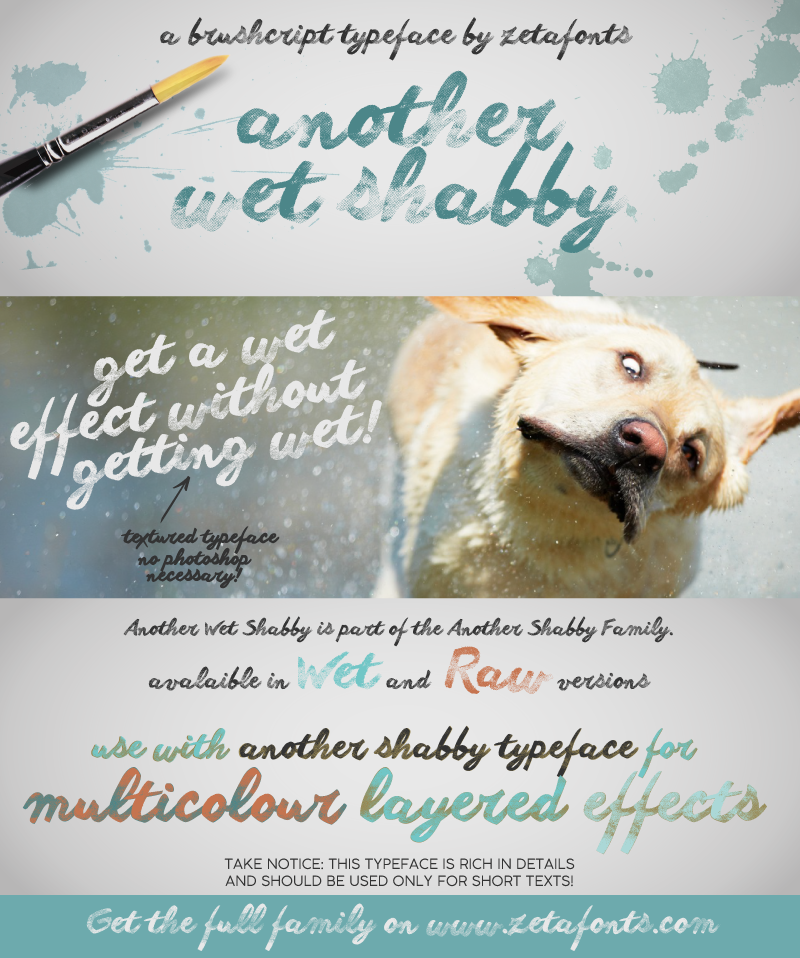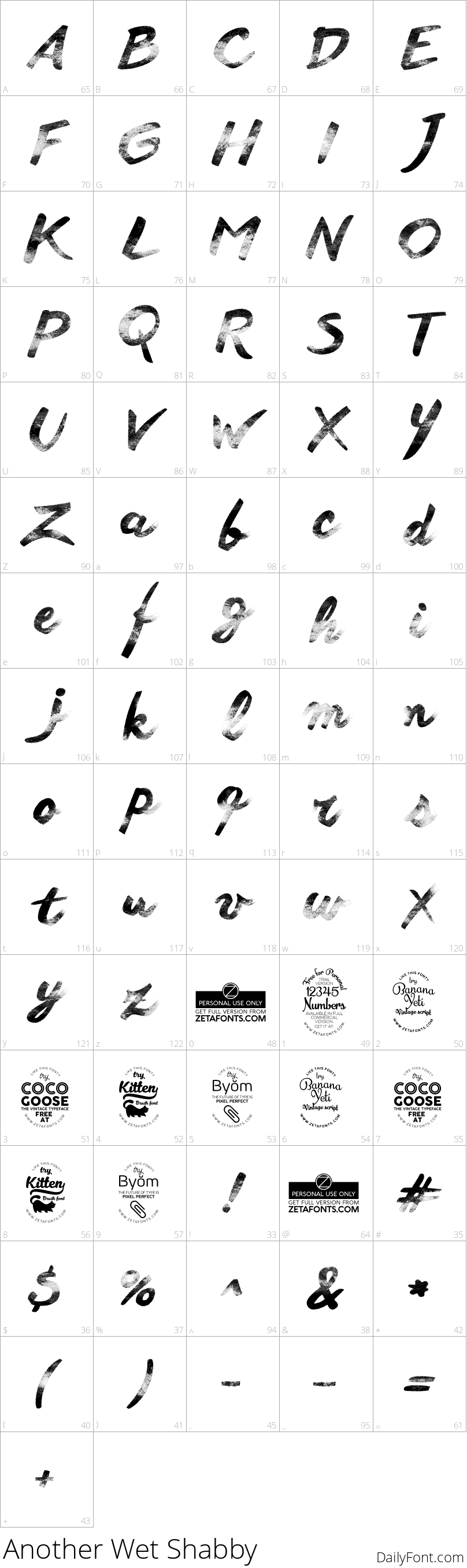
Another Wet Shabby
Discover Another Shabby, a charming script font that captures the essence of handwritten cursive. This stylish typeface is characterized by its rough, brushstroke-inspired strokes, subtly rounded at the edges for a natural, casual feel. Ideal for creating warm and inviting designs, Another Shabby is perfect for use in a variety of applications, including logos, invitations, and body text.
What sets this font apart is its versatility: it covers over 40 languages that use the Latin, Greek, and Cyrillic alphabets, with comprehensive support for accents and diacritics. The full family includes four weights, providing ample options for achieving the desired level of sophistication or playfulness in your design.
But that's not all - Another Shabby also features a unique "Wet" version, exclusive to the Latin alphabet. This innovative feature allows you to create stunning watercolor-textured designs without requiring photo-retouch software. Simply use this font to add a touch of artistic flair to your text-based creations, such as illustrations, journal entries, or even digital art. Whether you're looking for a classic handwritten script or something more experimental and creative, Another Shabby is sure to delight.